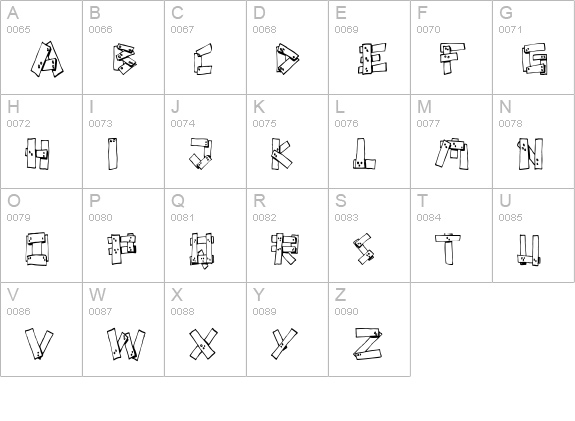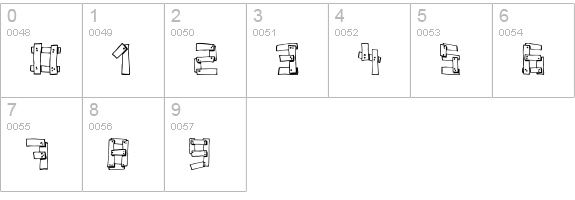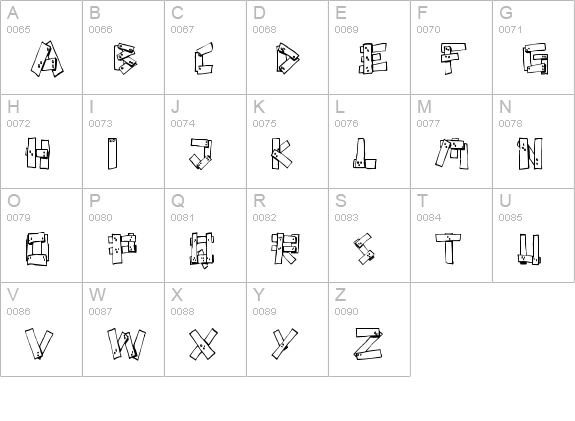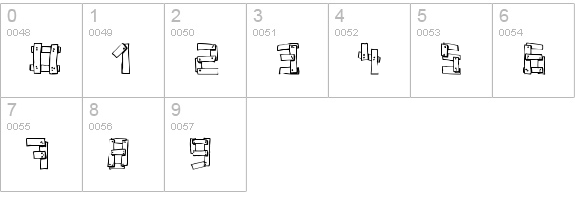
Planks Font Details
Planks font is a stunning display typeface that exudes a sense of strength and solidity. Its bold and angular design captures the essence of rugged wooden planks, making it a perfect choice for projects that require a touch of rustic charm. Every letter is meticulously crafted with sharp edges and intricate details, creating a visually captivating and unique look. One of the best things about Planks font is that it is completely free. Yes, you read that right! This exceptional font is freely available to download at FontsMarket.com. Now you can bring the timeless appeal of wooden planks into your designs without any cost. Whether you're working on a logo, poster, or website, Planks font will add a touch of authenticity and character to your project. With its versatile nature, Planks font can be used for a wide range of design purposes. Its strong presence and eye-catching appearance make it perfect for headlines, titles, and large-scale typography. The unique letterforms ensure that your message will stand out and grab the attention of your audience. Planks font is not just visually stunning, but it is also highly legible. The carefully balanced letterforms ensure that each character is easily distinguishable, even at smaller sizes. This makes Planks font a great choice for body text, captions, and any other instances where readability is crucial. So why wait? Download Planks font for free at FontsMarket.com and start adding a touch of rustic elegance to your designs today. Whether you're a professional designer or someone who simply appreciates beautiful typography, Planks font will not disappoint. Its captivating design, versatility, and affordability make it a must-have in your font collection.